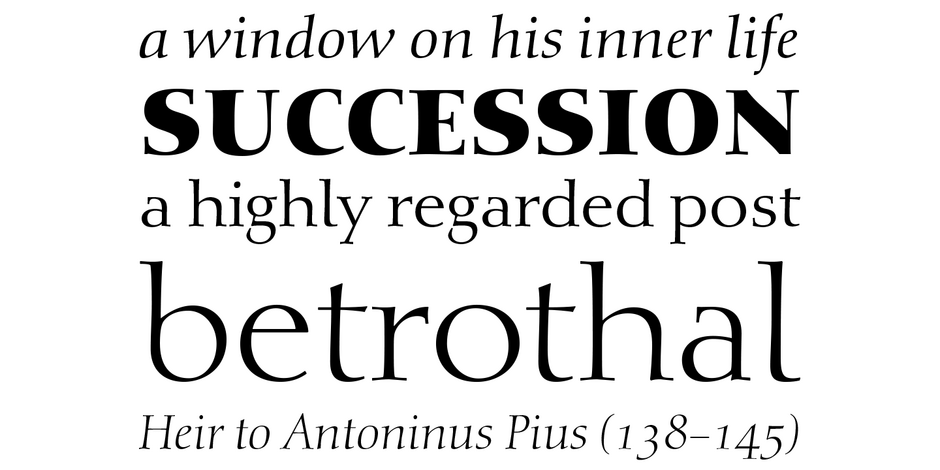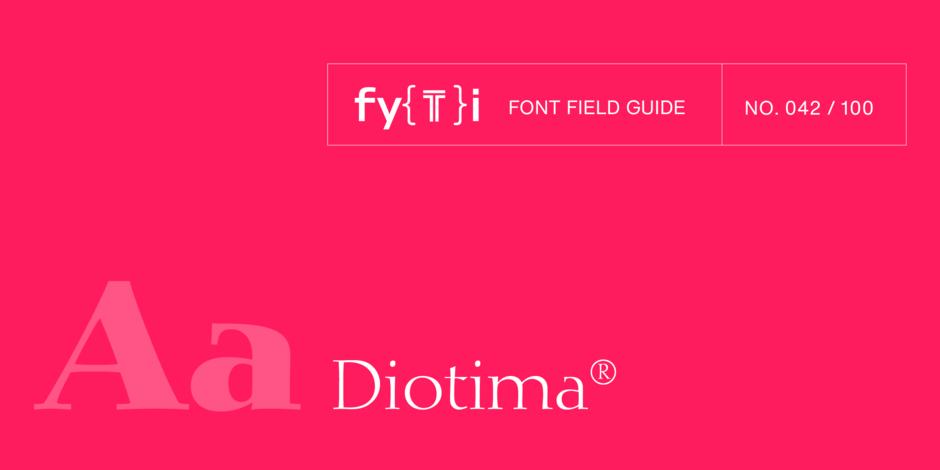
Diotima Classic® Font Field Guide
FOUNDRY: Linotype
DESIGNER: Gudrun Zapf von Hesse, Akira Kobayashi
CLASSIFICATION: Didone
Best Practices
Diotima Classic Regular and Bold are distinctive – and still highly legible at text sizes. Diotima Classic Light can also be an excellent choice for short blocks of text copy. It, and the Bold and Heavy weights, create striking headlines.
Family
Diotima Classic is a four-weight family – each with a complementary Italic design.
Font Facts
- Von Hesse’s handwriting served as the basis for the italic designs.
- Diotima is a term from ancient Greece, and translates to “honored by God.“
- Diotima Classic’s letterforms are more harmonious and well-balanced than the original design.
Roots
Gudrun Zapf von Hesse began the design of the original Diotima, in 1939 when she was a bookbinder. The design was released as a family of metal typeface for hand setting by D. Stempel AG between 1951 and 1953. In 2008, Akira Kobayashi, Linotype’s type director, and von Hesse collaborated to revive and reinterpret Diotima for both text and display typography. The result is Diotima Classic.
Legibility
While decorative, the characters in Diotima Classic are highly legible in both text and display sizes, on screen and in hardcopy.
How to spot Diotima
Alternate Choices
Perfect Pairing